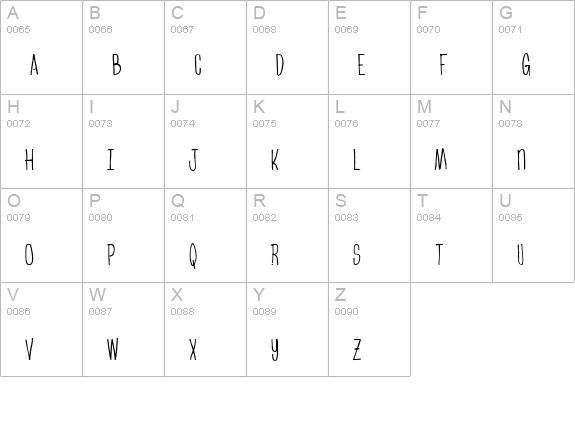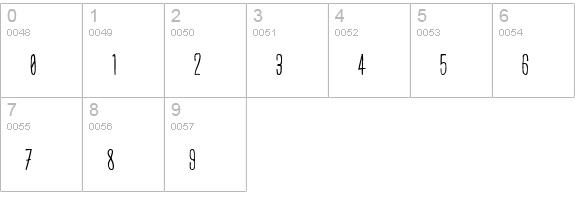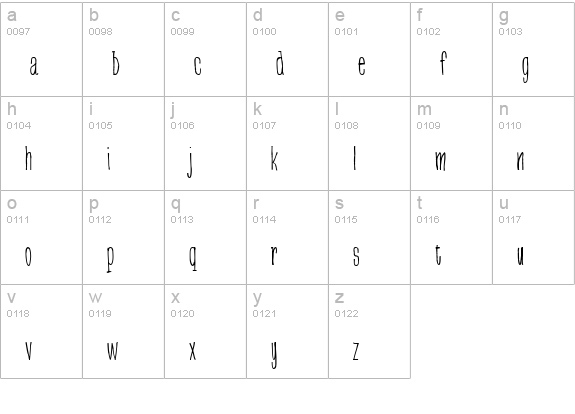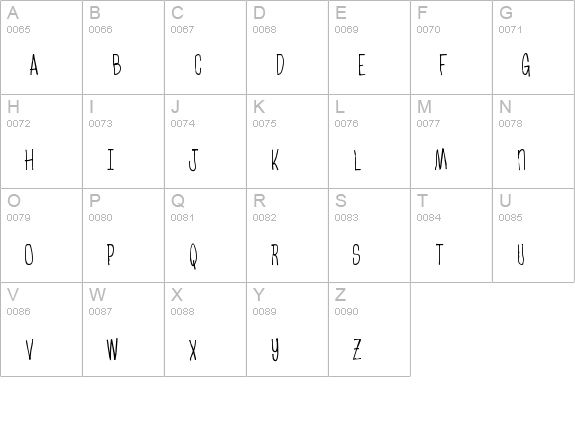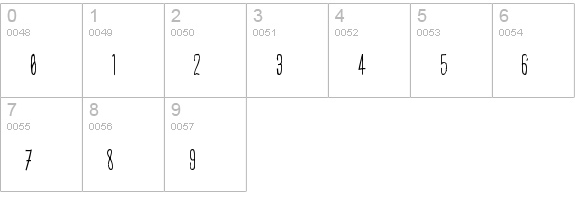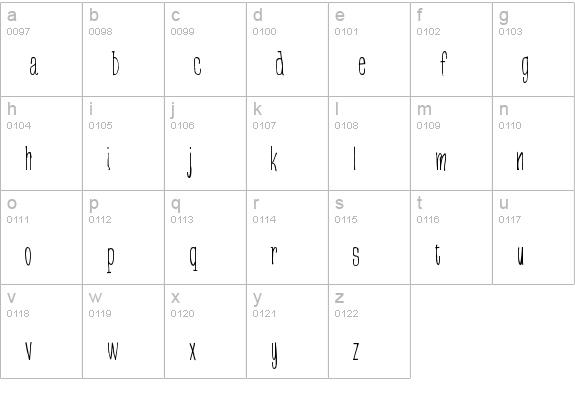
greenbeans Thin Font Details
greenbeans Thin is a delicate, low-contrast variant in the greenbeans typeface family \xE2\x80\x94 well suited to fashion editorial, minimal branding, and high-contrast display.
Introducing greenbeans Thin font - a sleek and elegant typeface that exudes sophistication and modernity. With its slender strokes and graceful curves, this font adds a touch of refinement to any design project. But what sets greenbeans Thin font apart from the rest? It's the fact that it is free! Yes, you read that right - this incredible font is freely available to download at FontsMarket.com. So, whether you're a professional designer looking to enhance your creations or an aspiring artist looking to experiment with typography, greenbeans Thin font is the perfect choice for you. With its clean lines and delicate appearance, greenbeans Thin font is ideal for a range of design applications. From logo designs to branding materials, website headers to social media posts, this font effortlessly elevates your visuals and brings them to life. Not only does greenbeans Thin font boast a stunning aesthetic, but its versatility is also worth mentioning. It effortlessly adapts to various design styles, seamlessly blending into both minimalist and elaborate compositions. Its thin and refined nature allows for easy legibility, making it suitable for both display text and body copy. So why wait? Unlock the full potential of your design projects with greenbeans Thin font - the freely available font that combines elegance, versatility, and accessibility. Visit FontsMarket.com today to download this remarkable font and embark on a creative journey like never before.